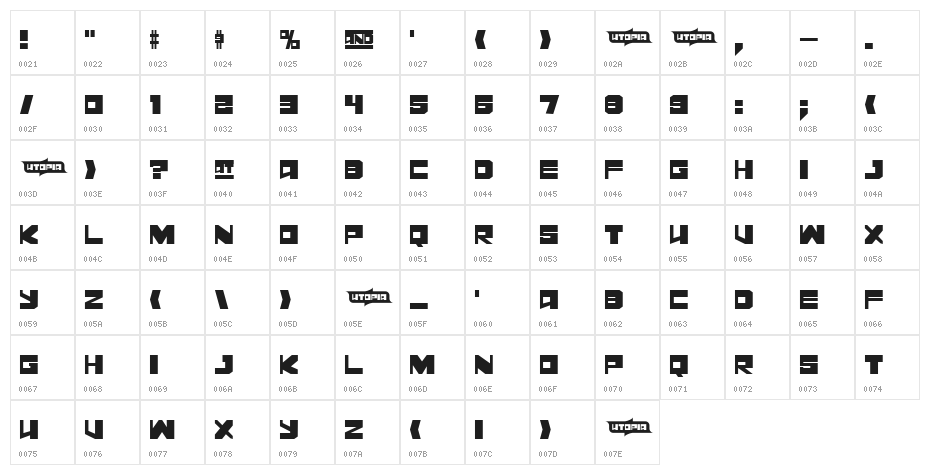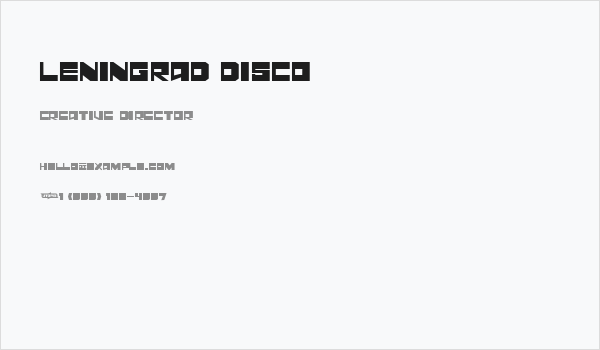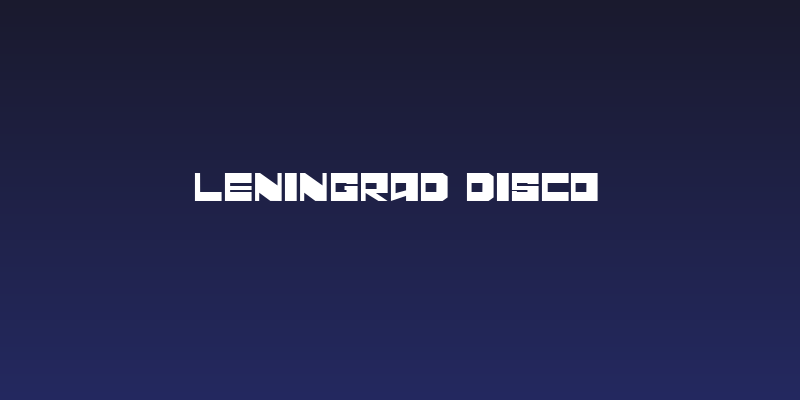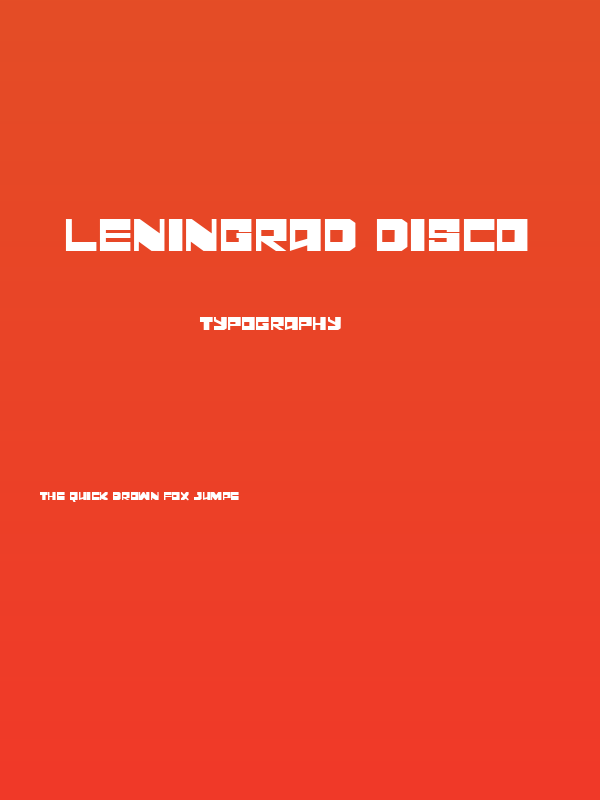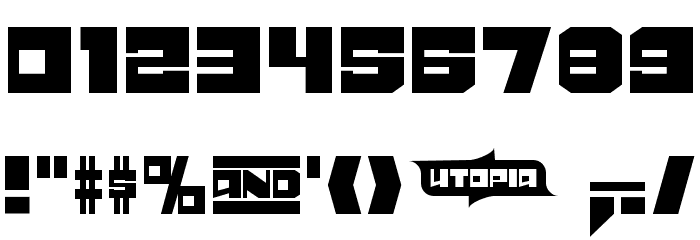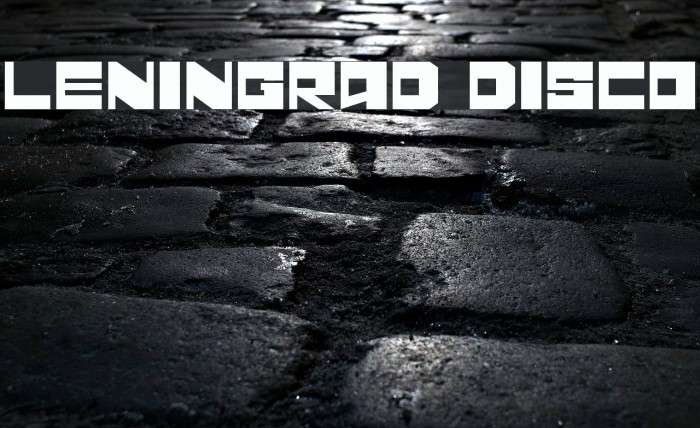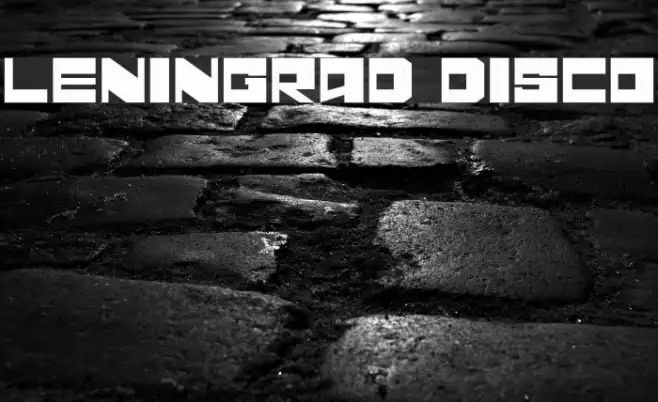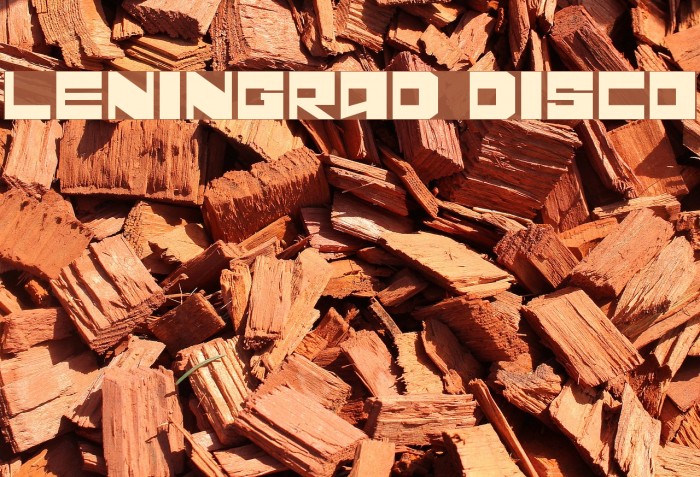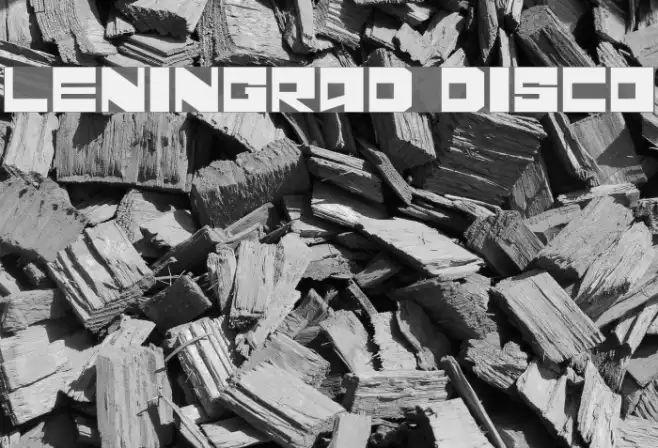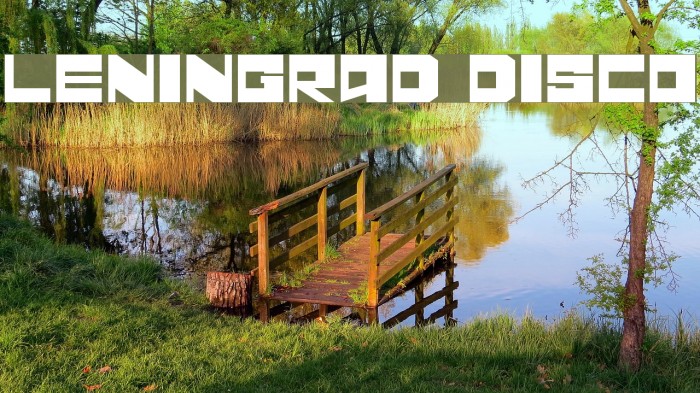
Leningrad Disco Font
Leningrad Disco Description
This font features a bold, geometric design with sharp angles and a futuristic aesthetic. The characters are blocky and robust, creating a strong visual impact. The uppercase letters are particularly striking, with unique cuts and lines that give them a dynamic appearance. The numbers and special characters maintain the same bold and angular style, ensuring consistency across all elements. This font is ideal for projects that require a modern and edgy look, such as music album covers, posters, or branding for tech companies.
| Proposed Projects | Ideal for music album covers, posters, tech branding, and modern advertising. |